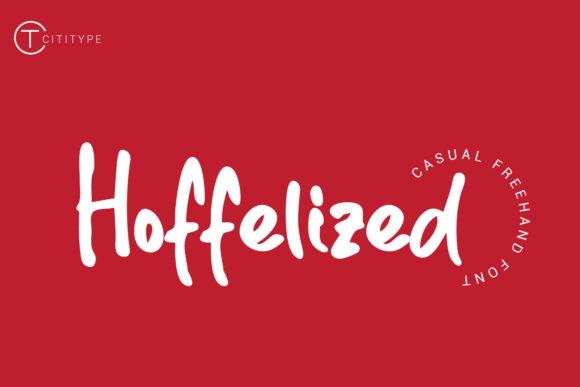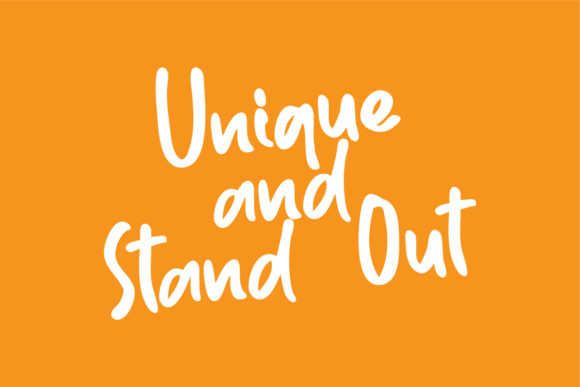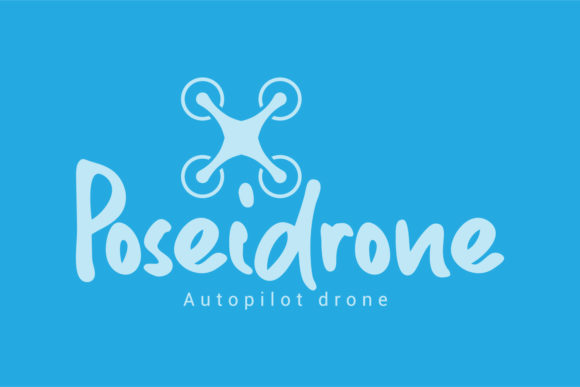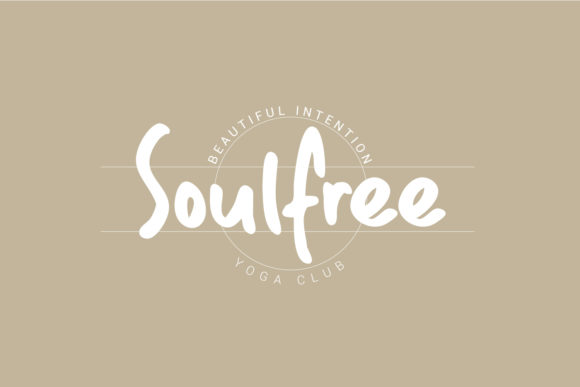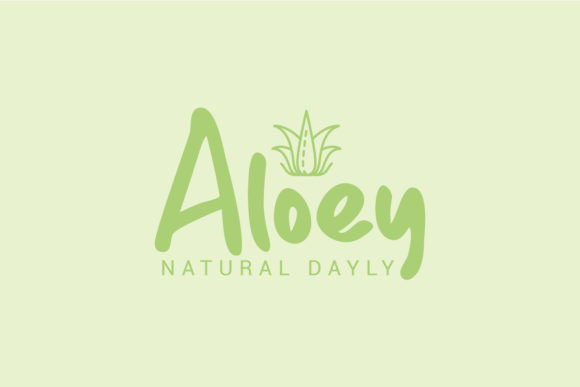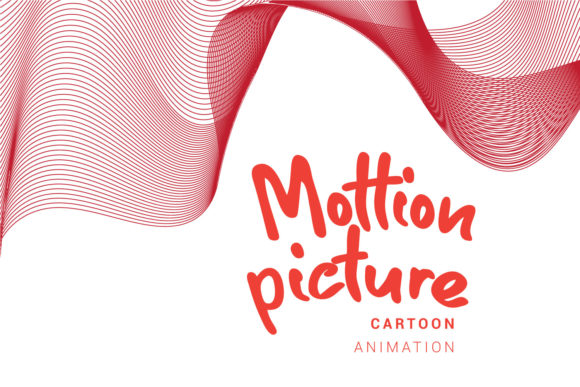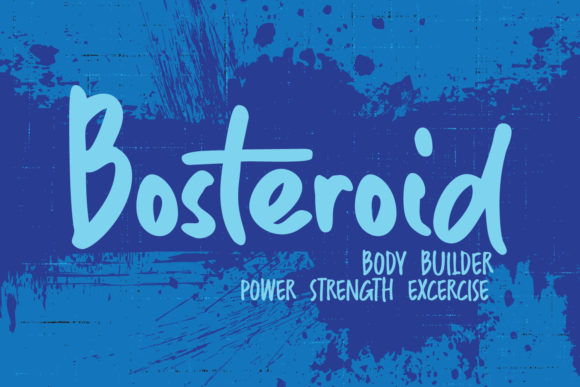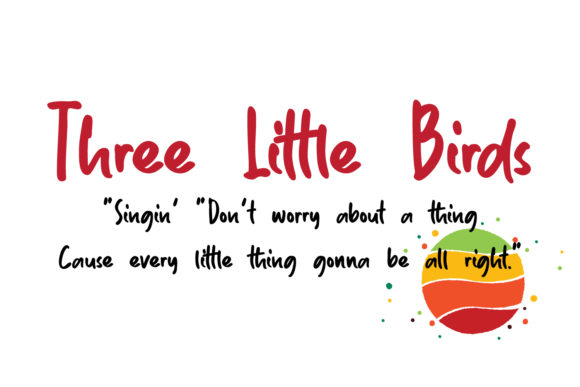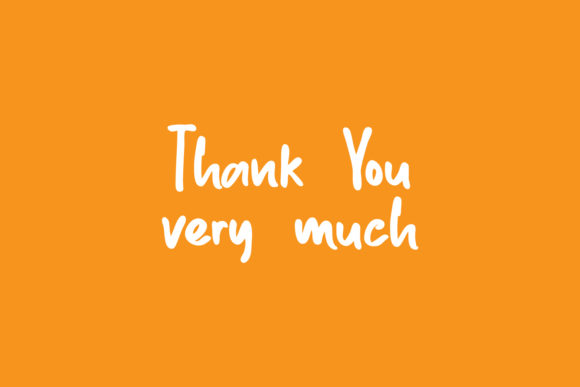
Hoffelized Font
About Hoffelized Font
Hoffelized embodies fun, quirkiness and authenticity. This enchanting handwritten font will turn any creative idea into a true standout.